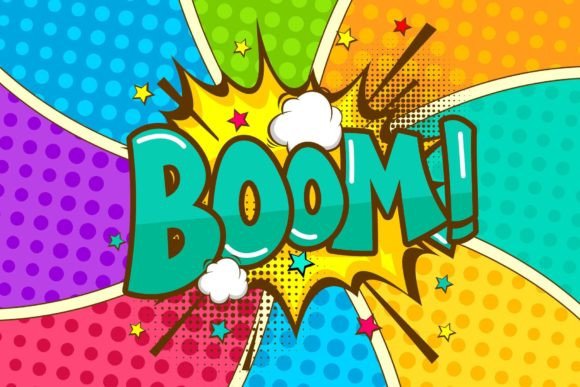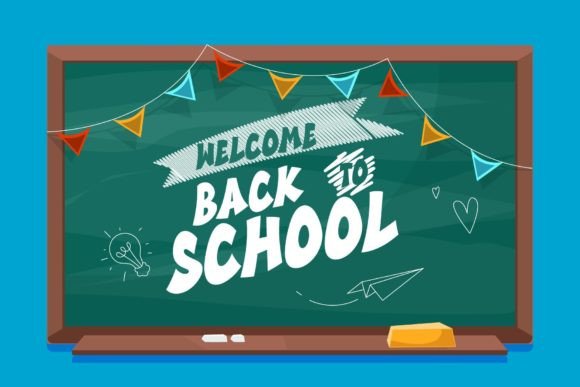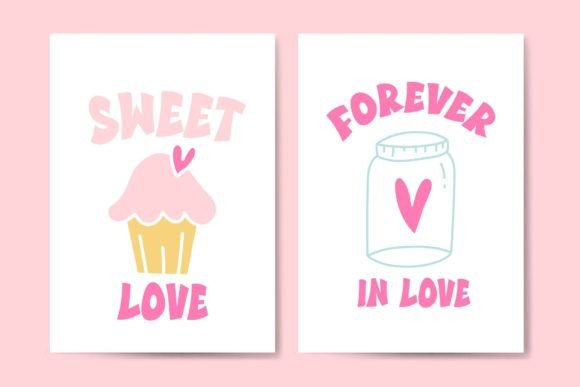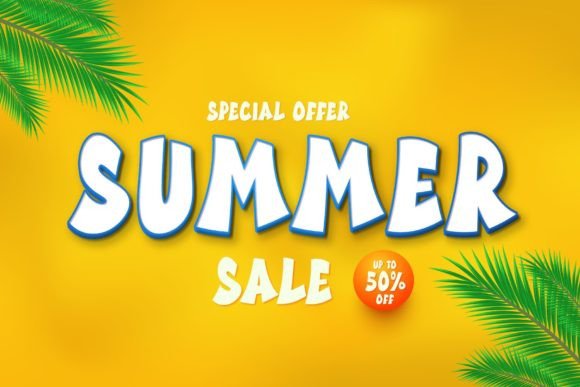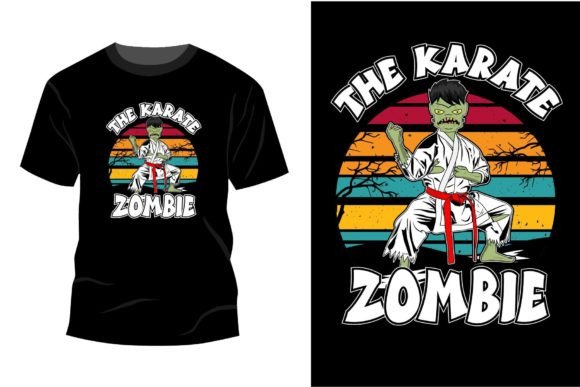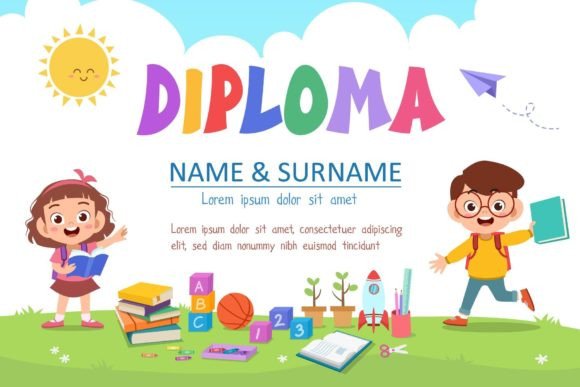
Introducing Comic Art Font: Add a Touch of Fun and Drama to Your Designs
Are you looking for a font that can add a dash of excitement and energy to your designs? Look no further than Comic Art Font, a cool and fun display font that’s perfect for titles, headings, and words that need a more dramatic emphasis. With its unique and playful style, Comic Art Font is sure to become a valuable asset in your font library, allowing you to enhance any creation with its bold and eye-catching charm.
What Makes Comic Art Font So Special?
Comic Art Font is a display font that is designed to make a statement. Its bold lines, exaggerated features, and dynamic shapes make it perfect for grabbing attention and adding a touch of drama to your designs. Whether you’re working on a project for a client or creating something for personal use, Comic Art Font is sure to add a fun and playful touch that will set your work apart from the rest.
One of the best things about Comic Art Font is its versatility. It’s perfect for a wide range of design projects, from posters and flyers to social media graphics and website headers. The font’s bold and playful style makes it ideal for designs that need to stand out, such as:
- Comic books and graphic novels
- Cartoon and animation projects
- Children’s books and educational materials
- Advertising and marketing campaigns
Key Features of Comic Art Font
So what makes Comic Art Font so special? Here are just a few of its key features:
- Bold and playful style: Comic Art Font has a unique and dynamic style that’s perfect for adding a touch of drama and excitement to your designs.
- Exaggerated features: The font’s exaggerated features, such as its bold lines and dynamic shapes, make it perfect for grabbing attention and adding a touch of energy to your designs.
- High-quality design: Comic Art Font is designed to be clear and legible, even at large sizes, making it perfect for use in a variety of design projects.
Tips for Using Comic Art Font
Here are a few tips for using Comic Art Font in your designs:
- Use it sparingly: Comic Art Font is a bold and attention-grabbing font, so it’s best to use it sparingly to avoid overwhelming your design.
- Pair it with other fonts: Comic Art Font pairs well with a variety of other fonts, so don’t be afraid to experiment with different combinations to find the one that works best for your design.
- Experiment with different colors: Comic Art Font looks great in a variety of colors, so don’t be afraid to experiment with different hues and shades to find the one that works best for your design.